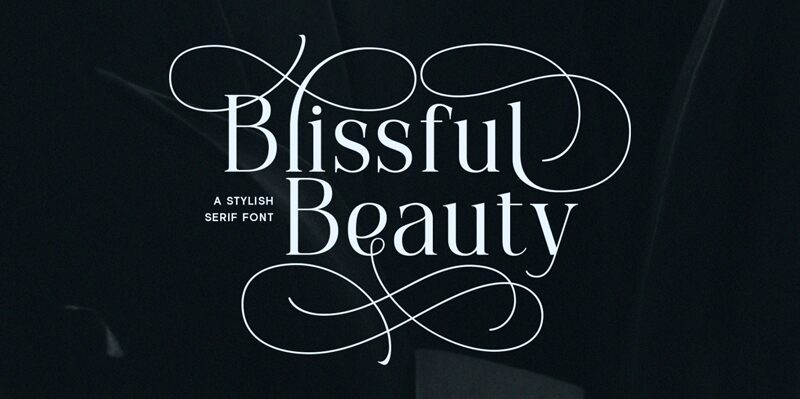
Blissful Beauty, designed by Letterhend Studio, embodies refined elegance with its graceful serif style. The font exudes a classic charm emphasized by its exquisite curves and fluid lines, creating an overall sense of sophistication. Its striking presence is accentuated through bold strokes contrasted with delicately tapered ends, making it both eye-catching and inviting.
Ideal for luxury branding, wedding invitations, and high-end editorial design, Blissful Beauty seamlessly merges aesthetics with functionality. In applications that require an elegant touch—such as fashion magazines or premium product labels—it shines brilliantly, ensuring that every letter conveys a message of quality and grace. This font not only enhances visual appeal but also elevates the emotional resonance of any design project it graces.